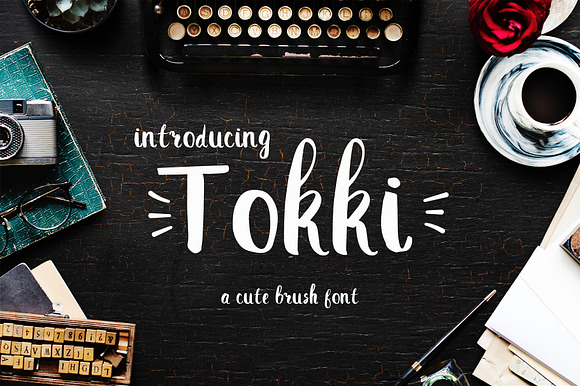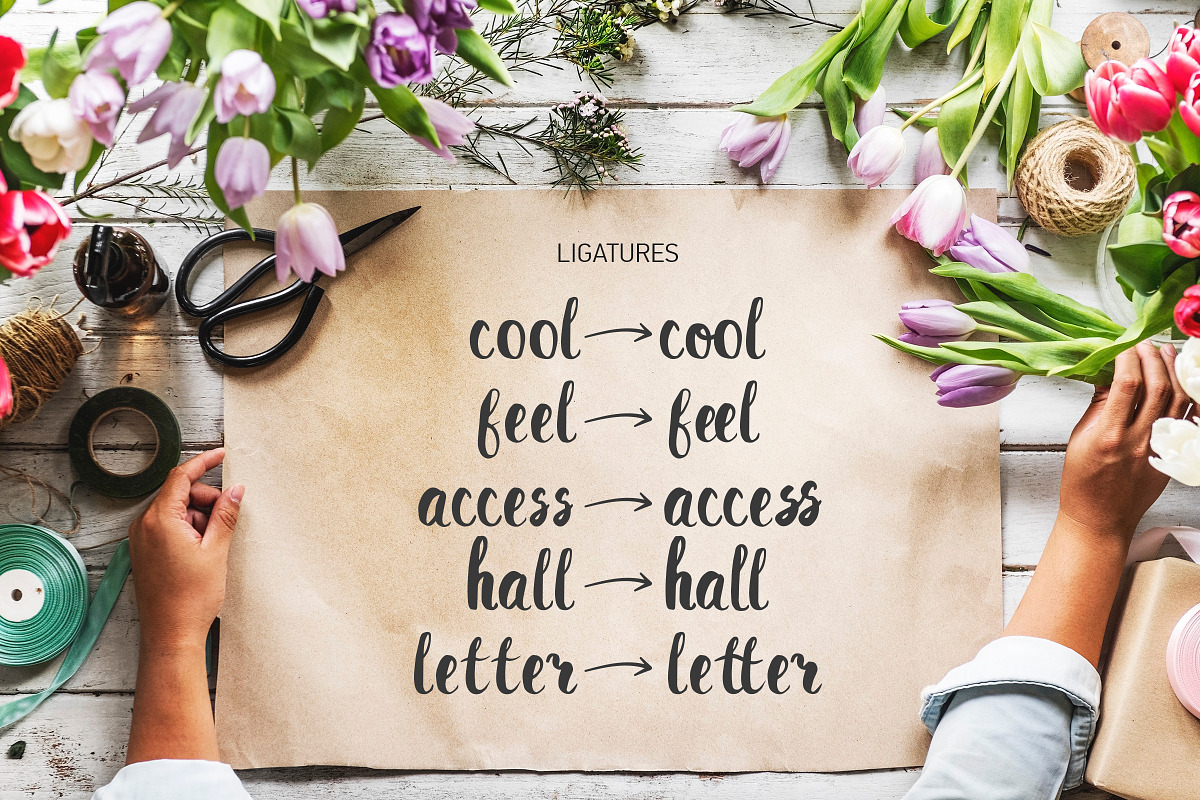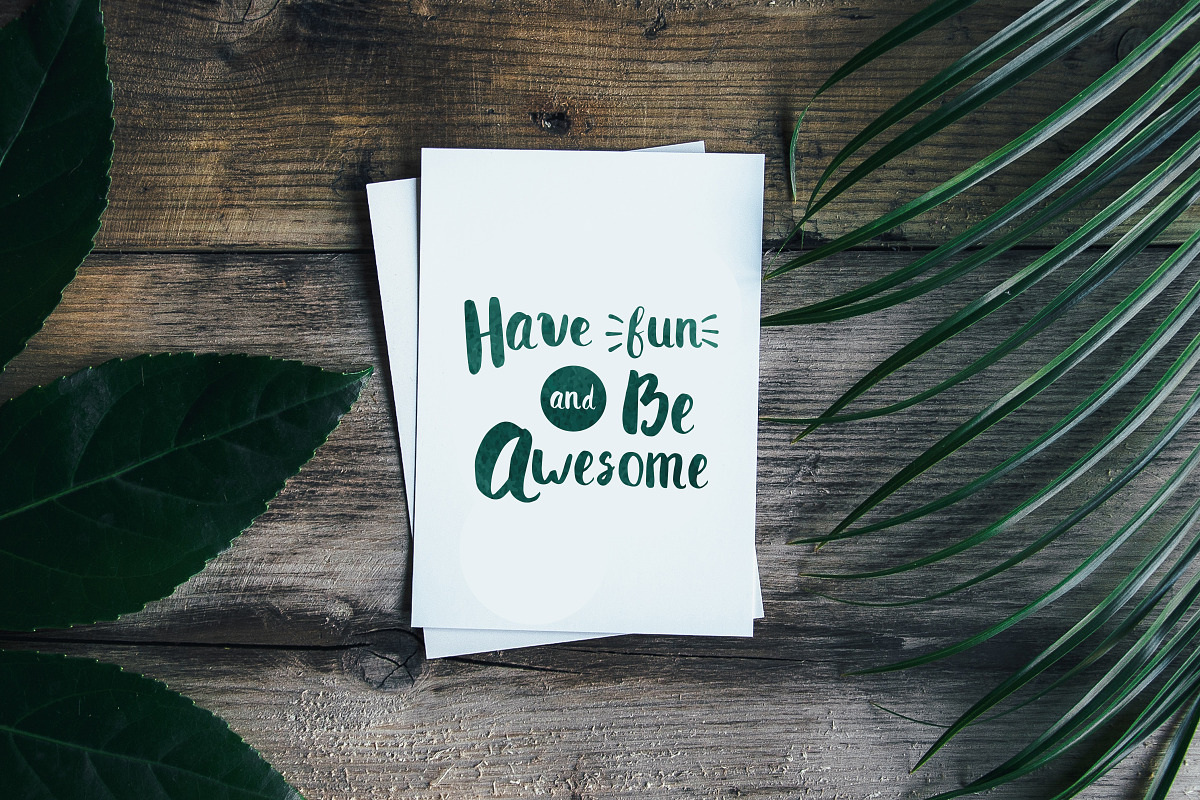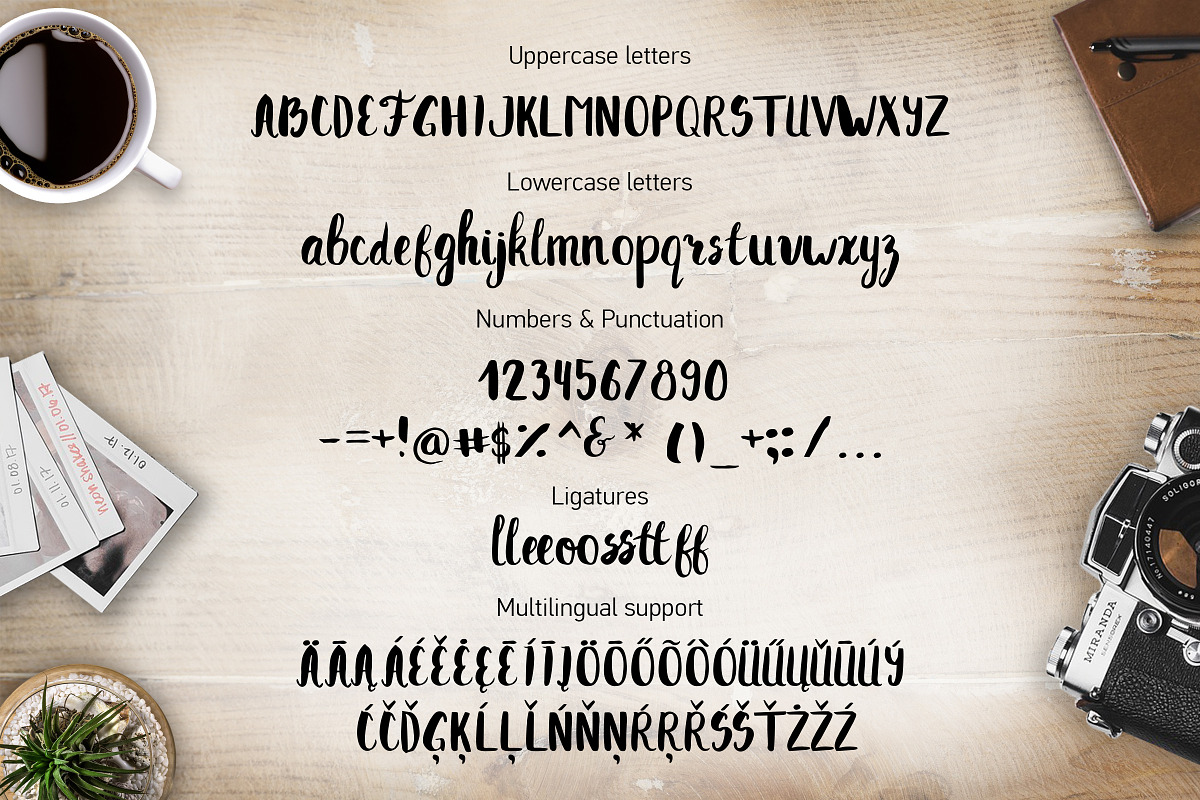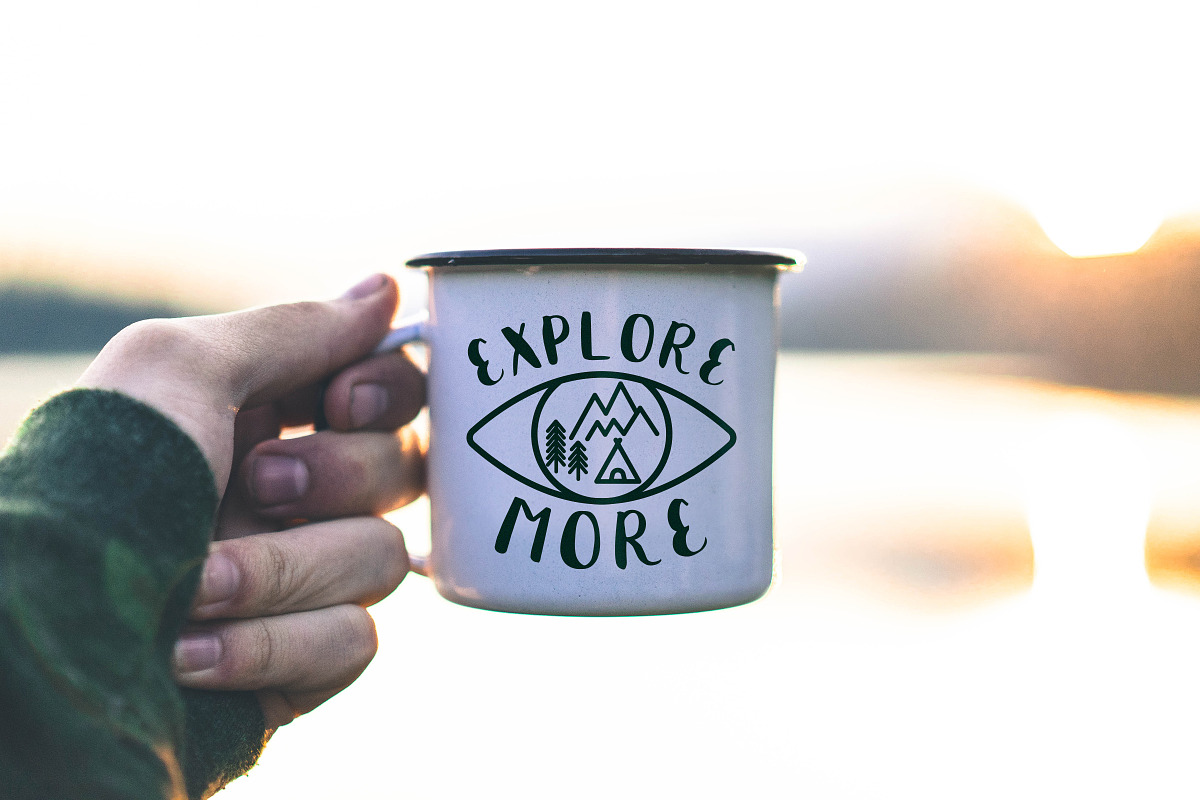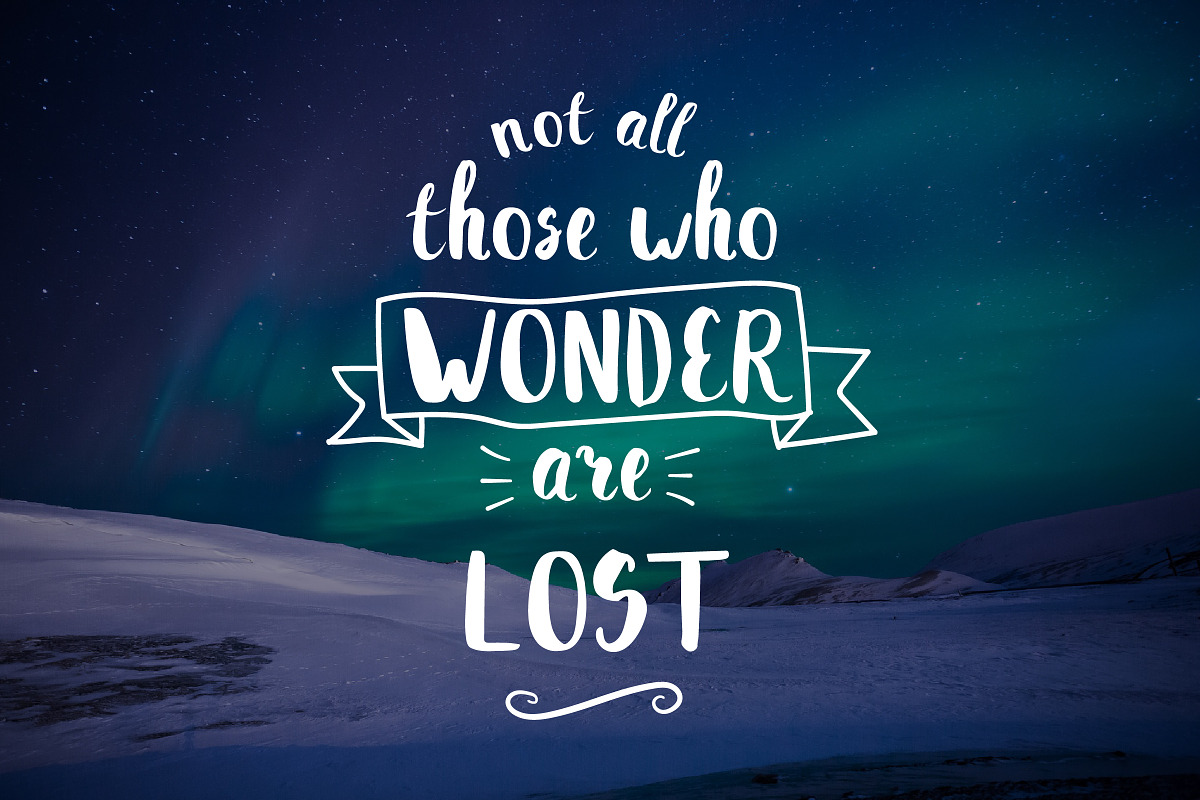
TOKKI cute brush font
Hi! I'm very happy to introduce my cute little brush font TOKKI!
It's modern typeface with a handwritten feeling. With its ligatures and multilingual characters, you'll easily get the authentic handmade look to your designs.
Multilingual characters